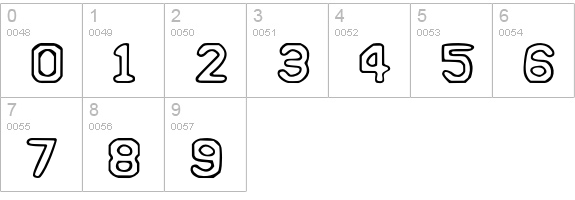
Surveillance-DateAndTime Font Details
Introducing Surveillance-DateAndTime font, a sleek and modern typeface designed to add a touch of sophistication to your projects. This unique font features a perfect balance of clean lines and elegant curves, making it ideal for a wide range of design applications. The Surveillance-DateAndTime font is not only visually appealing but also highly functional, with its easily readable characters that ensure clarity in any text. Whether you are creating a professional document, a stylish poster, or a captivating website, this font will elevate your design to the next level. And the best part? Surveillance-DateAndTime font is available for free download at FontsMarket.com. With just a few clicks, you can enhance your projects with this premium font without any cost. Don't miss out on the opportunity to elevate your designs with the sophisticated and versatile Surveillance-DateAndTime font – download it for free today!